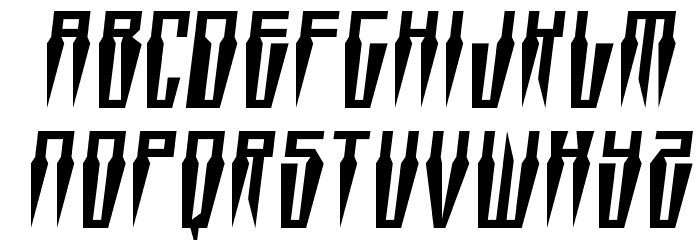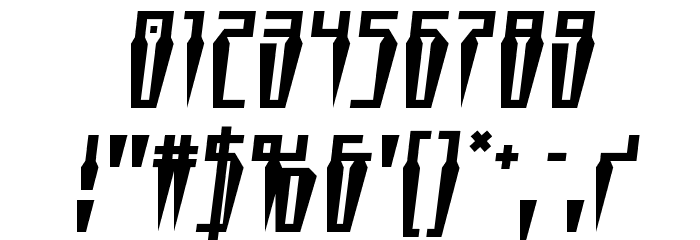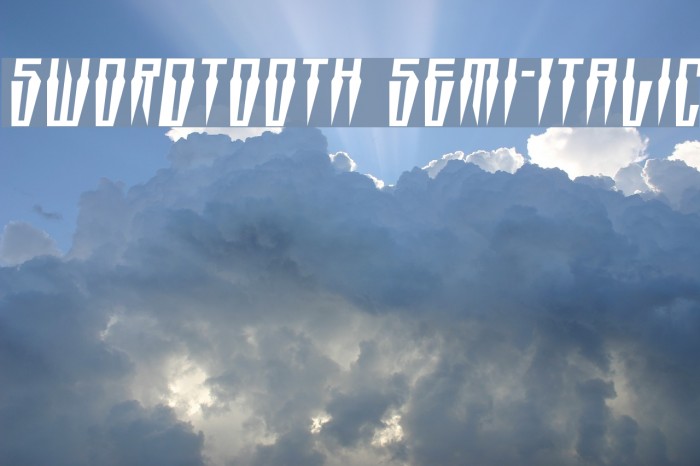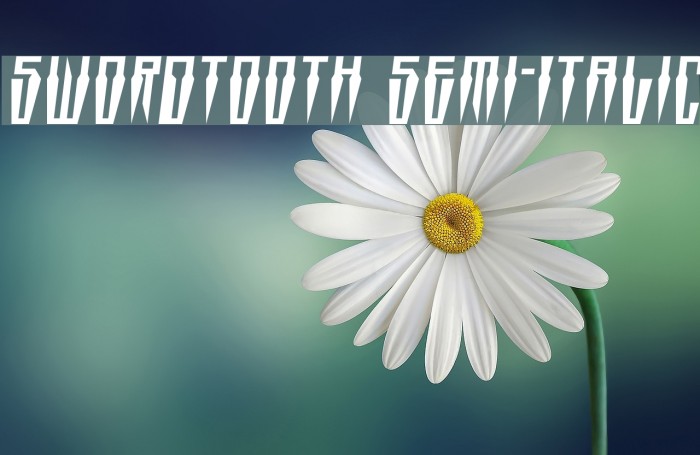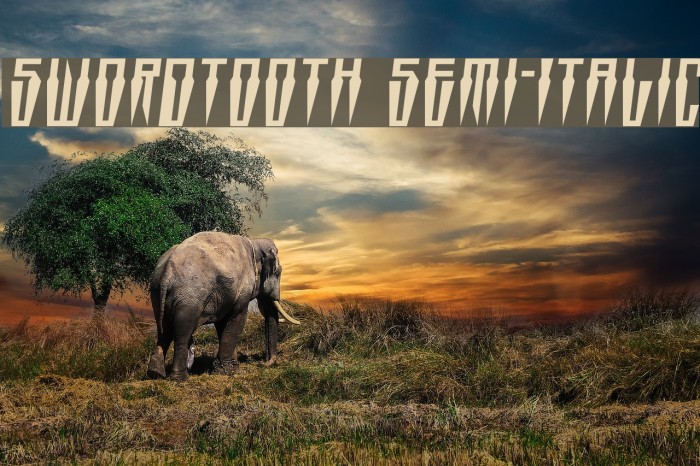
Swordtooth Semi-Italic Font
This font features a bold and striking design with sharp, angular edges that give it a fierce and aggressive appearance. The characters are slightly italicized, adding a dynamic and forward-leaning aspect to the overall look. The uppercase and lowercase letters maintain a consistent style, with elongated vertical strokes and pointed serifs that resemble blades or teeth. The numbers and special characters follow the same design principles, ensuring uniformity across the typeface. The font's unique style makes it stand out, suitable for projects that require a bold and impactful visual statement.
A bold, angular font with sharp edges and a semi-italicized style.
- Proposed Projects: Ideal for video game titles, movie posters, branding for edgy products, or any design needing a strong, aggressive look.
- Overall Style: Modern, Aggressive